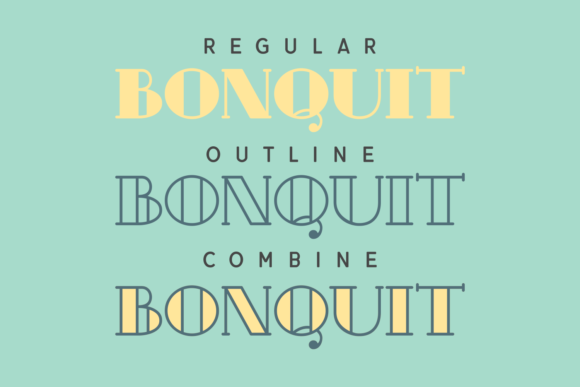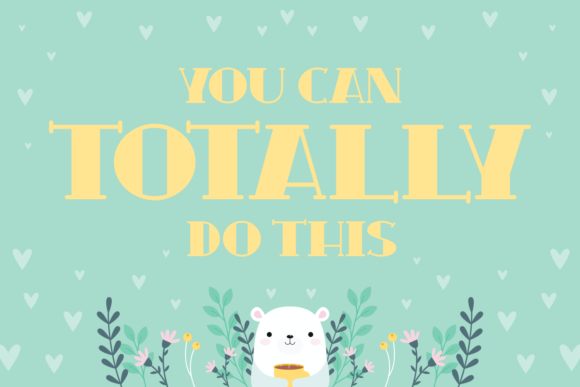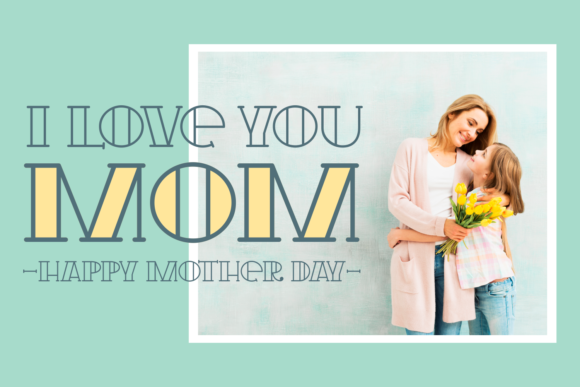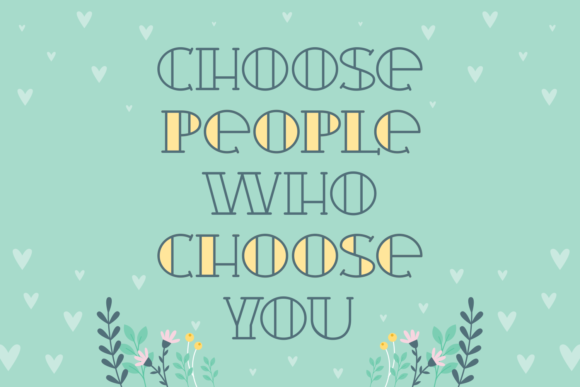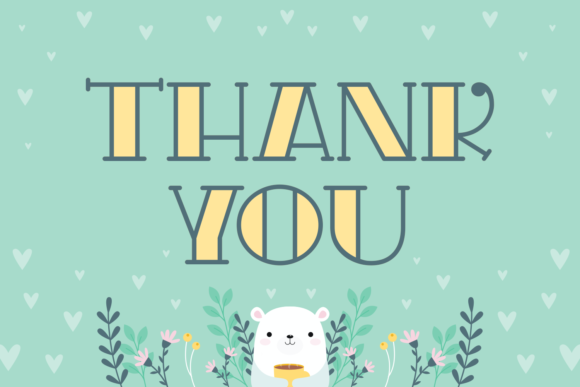
Unleashing Creativity with the Perfect Font
You know that moment when a spark of inspiration hits, and you can’t wait to bring your creative vision to life? For designers, that moment often starts with the perfect font. The right typography can elevate your work from ordinary to extraordinary, and that’s exactly what the Bonquit Font is designed to do.
This cool outlined display font is more than just a stylish addition to your font library – it’s a powerful tool that can enhance any creation. Whether you’re working on a logo, a poster, or a digital project, Bonquit Font has the potential to take your design to the next level.
With its versatility and unique style, Bonquit Font is a valuable asset for designers who want to add a touch of sophistication and creativity to their work. So, what are you waiting for? Discover the power of Bonquit Font and unleash your full creative potential.
Bonquit Font Key Features
- Character Set: The font includes a comprehensive set of characters, including Latin, Cyrillic, and Greek alphabets, as well as a range of punctuation marks and symbols.
- Unique Characteristics: Bonquit Font features a distinctive, elegant design with a mix of geometric and organic elements, making it suitable for a variety of design applications, including typography, branding, and packaging.
- Weight and Style: The font is available in three weights: Light, Regular, and Bold, allowing for a range of tonal options and expressive possibilities.
Bonquit Font Review
Overall, I was really excited to dive into the Bonquit font, but my experience was a mixed bag. Here’s what worked well and what didn’t:
- Unique and Creative Design: Bonquit font has a distinctive, whimsical feel that sets it apart from more traditional fonts. I appreciate the effort to create something truly unique.
- High-Quality Rendering: The font renders beautifully at various sizes and resolutions, making it suitable for a wide range of applications.
- Good Legibility: The letters are well-designed, making it easy to read, even at smaller sizes.
- Limited Character Set: Bonquit font has a relatively small character set, which might make it less suitable for projects that require a wide range of languages or special characters.
- No Italic or Bold Variants: The font is only available in regular weight, which limits its versatility in certain design applications.
While Bonquit font shows promise, its limitations hold it back from being a top choice for designers. If you’re looking for a unique, high-quality font for a specific project, Bonquit might be worth considering. However, if you need a font with a wide range of features and flexibility, you might want to explore other options.
Tip: Use Bonquit Font for headings to create a visually appealing contrast with your content.
Tip: Use Bonquit Font for titles and headings to add a touch of elegance to your design.
Tip: Use Bonquit Font for headings and titles to create a consistent and professional look.
Bonquit Font is ideal for:
- Brand logos and identities